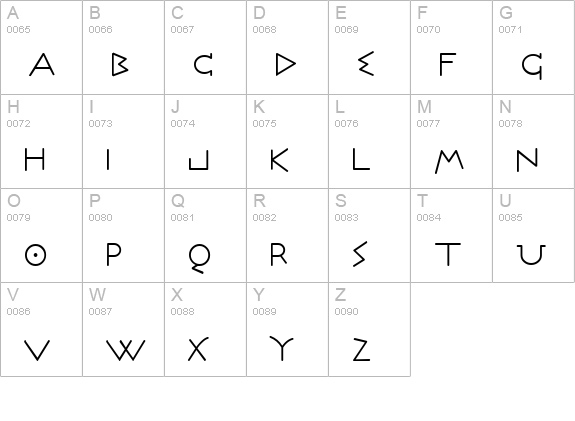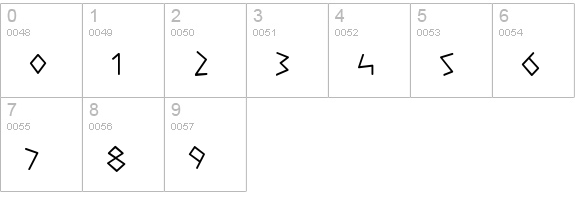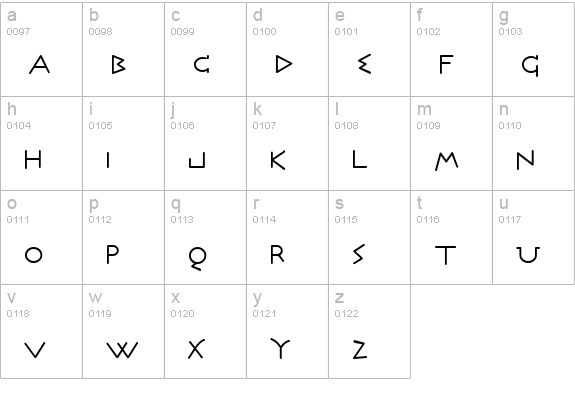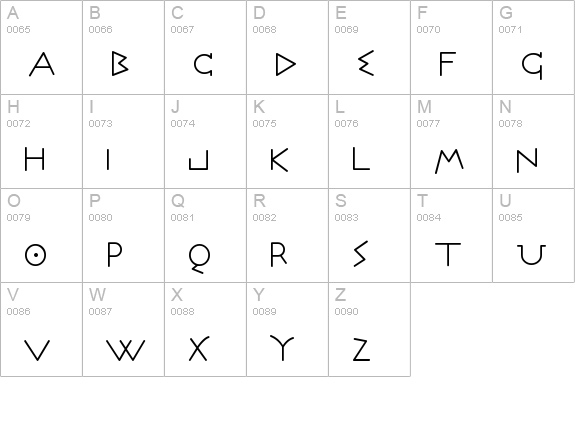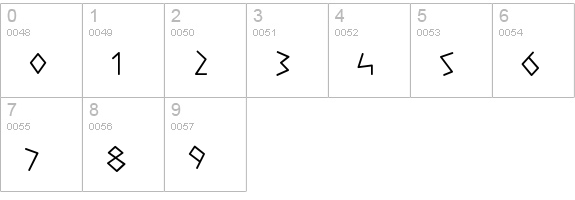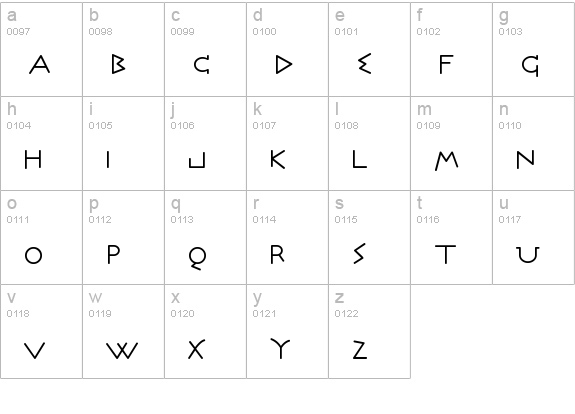
Olympus Font Details
Introducing the elegant and versatile Olympus font, a timeless typeface that seamlessly blends sophistication with modernity. With its clean lines and distinctive curves, Olympus exudes a sense of refinement and style that is perfect for a wide range of design projects. This exquisite font features a wide range of weights and styles, making it incredibly versatile and suitable for various design applications. Whether you're looking to create a sleek logo, eye-catching headlines, or elegant branding materials, Olympus is sure to elevate your designs to the next level. Best of all, Olympus is available for free download at FontsMarket.com. This means you can easily access this premium font without having to compromise on quality or style. So why wait? Enhance your design projects with the timeless beauty of Olympus font today.